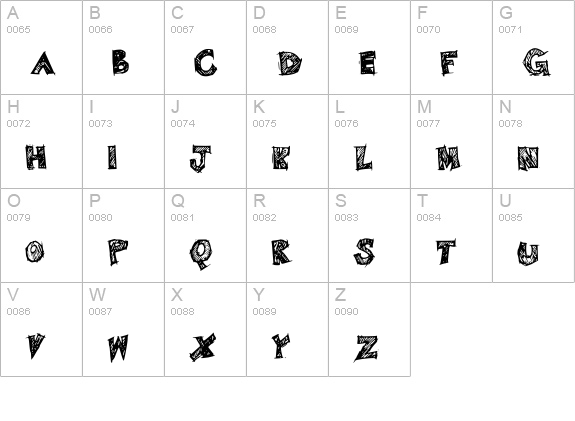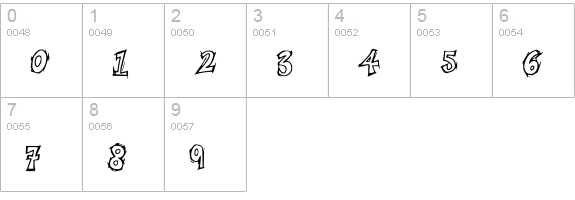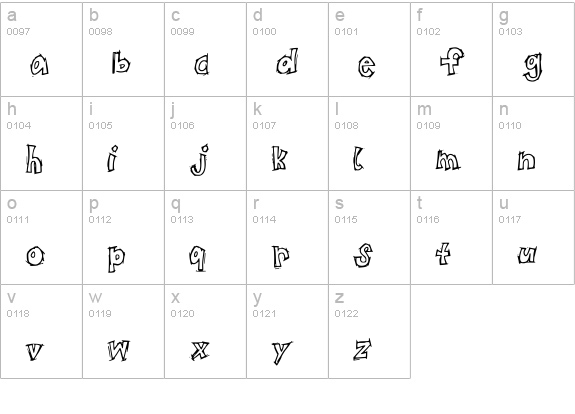
BistroSketch Font Details
Introducing BistroSketch, a whimsical and charming font that adds a touch of playfulness and creativity to any design project. With its hand-drawn appearance and quirky details, this font is perfect for bringing a sense of fun to logos, posters, invitations, and more. BistroSketch features a unique blend of irregular strokes and uneven letterforms, giving it an authentic and organic feel. Its slightly rough edges and imperfect lines add character and personality, making it stand out from traditional fonts. This font is not only visually appealing but also highly versatile. It can be used in a variety of contexts, from casual and lighthearted to artsy and unconventional. Whether you're designing for a cafe, a children's book, or a vintage-themed event, BistroSketch will add a touch of whimsy and nostalgia that is sure to captivate your audience. One of the best things about BistroSketch is that it is completely free! Yes, you read that right. This delightful font is freely available to download at FontsMarket.com. Now you can add a unique and playful touch to your designs without breaking the bank. So, why wait? Get your hands on BistroSketch today and let your creativity soar. Embrace the charm of hand-drawn lettering and create designs that are bound to leave a lasting impression. Download BistroSketch for free at FontsMarket.com and bring a touch of whimsy to your next project.